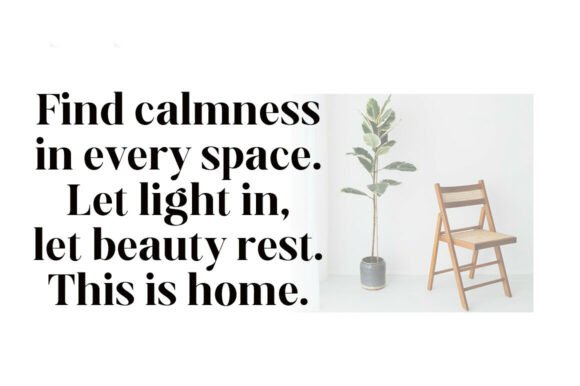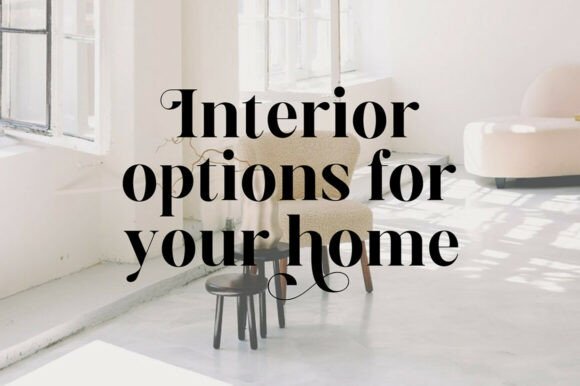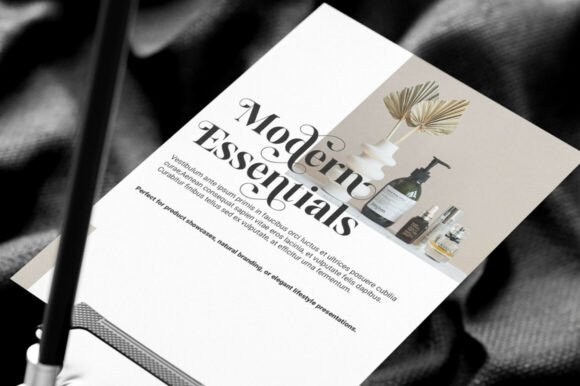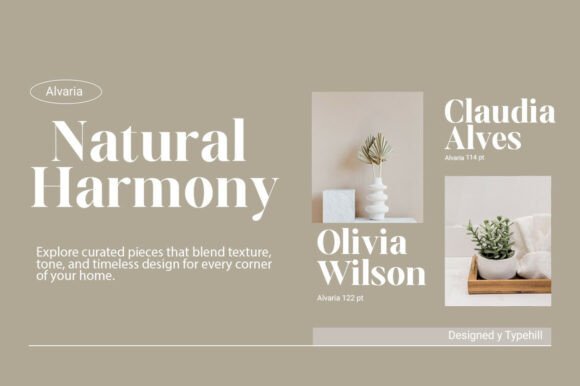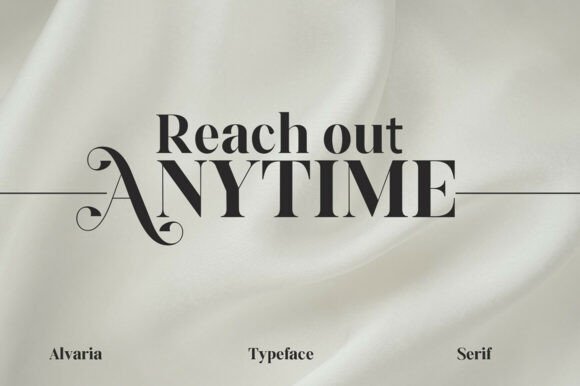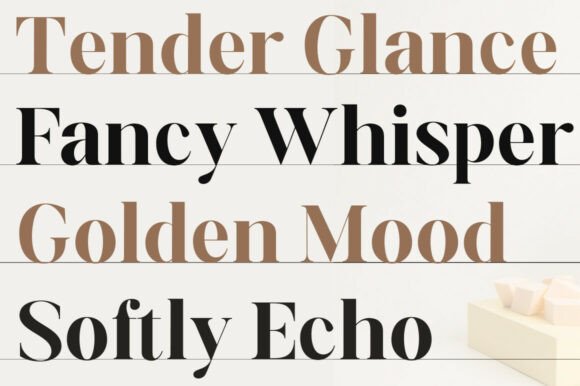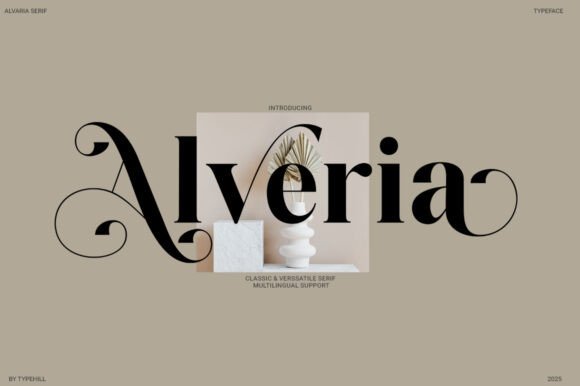
Introducing Alveria Serif Font: Timeless Elegance Meets Modern Versatility
In the world of typography, few fonts manage to strike a balance between classic sophistication and modern versatility. Alveria Serif, however, achieves this delicate balance with grace and poise. This exquisite serif typeface is meticulously crafted to bring a touch of elegance and refinement to a wide range of design projects, from editorial design and branding to packaging, logos, and luxurious print materials.
The Essence of Alveria Serif
Alveria Serif is characterized by its elegant curves, refined serifs, and harmonious proportions. Each glyph is carefully designed to convey a sense of luxury and sophistication, making it an ideal choice for designers and crafters looking to add a touch of high-end quality to their work. Whether you’re creating a boutique brand identity, designing a magazine layout, or crafting elegant wedding invitations, Alveria Serif is the perfect choice.
Key Features of Alveria Serif
- Elegant Curves and Refined Serifs: Alveria Serif boasts smooth, flowing curves and delicate serifs that add a touch of sophistication to any design.
- Harmonious Proportions: The font’s carefully balanced proportions ensure that it remains legible and visually appealing, even at smaller sizes.
- Subtle Sense of Luxury: Alveria Serif exudes a subtle sense of luxury and refinement, making it perfect for high-end branding, packaging, and print projects.
- Contemporary Edge: Despite its classic roots, Alveria Serif has a distinctly modern feel, making it suitable for a wide range of design applications.
Applications for Alveria Serif
Alveria Serif’s versatility makes it an excellent choice for a variety of design projects, including:
- Editorial Design: Use Alveria Serif to add a touch of elegance to magazine layouts, newspaper articles, and book designs.
- Branding and Packaging: Create a luxurious brand identity with Alveria Serif, perfect for high-end product packaging and labeling.
- Logos and Wordmarks: Design a sophisticated logo or wordmark with Alveria Serif, ideal for boutique brands and businesses.
- Wedding Invitations and Stationery: Add a touch of refinement to wedding invitations, stationery, and other paper goods with Alveria Serif.
Why Choose Alveria Serif?
With so many fonts available, why choose Alveria Serif for your design projects? Here are just a few reasons:
- Timeless Elegance: Alveria Serif’s classic design ensures that it will remain a stylish choice for years to come.
- Versatility: This font can be used across a wide range of design applications, from editorial design to branding and packaging.
- Attention to Detail: Alveria Serif is crafted with meticulous attention to detail, ensuring that every glyph and swash is of the highest quality.
Alveria Serif is a truly exceptional font that offers a unique blend of classic sophistication and modern versatility. With its elegant curves, refined serifs, and harmonious proportions, this font is sure to add a touch of luxury and refinement to any design project. Whether you’re a designer, crafter, or simply someone who appreciates beautiful typography, Alveria Serif is an excellent choice for anyone looking to elevate their design work.